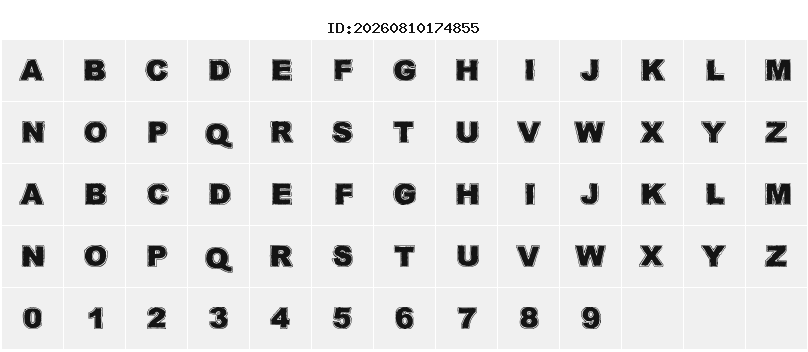
• Font Name: Quark Zone
• Designer: junkohanhero
Quark Zone.ttf is a modern, elegant sans-serif font designed for ultimate readability and visual harmony. Perfect for branding, headlines, web design, and print materials.